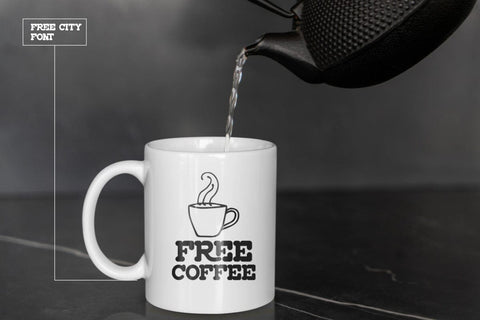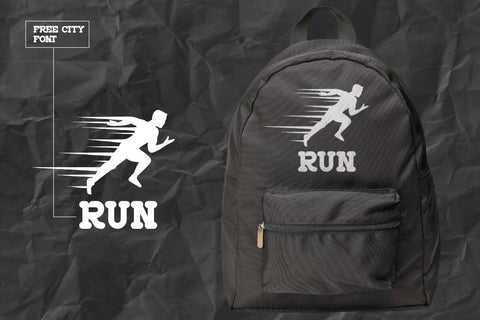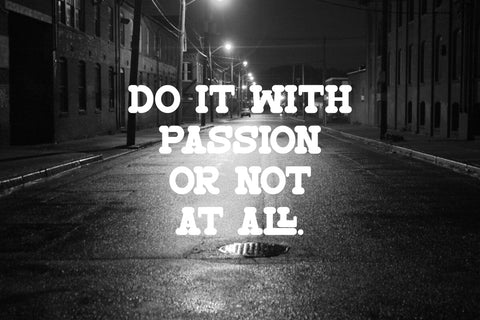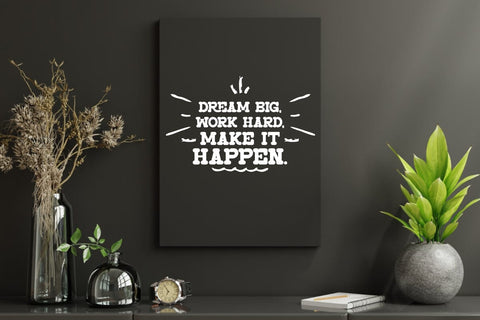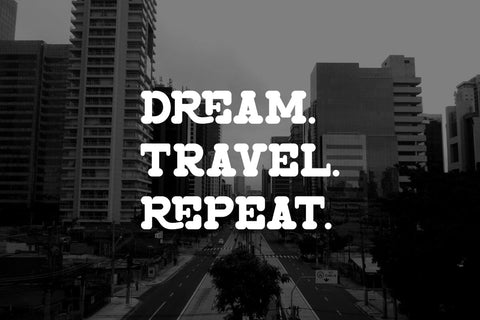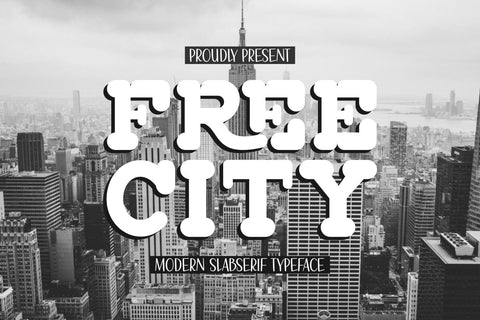
Free City - Vintage Slab Serif Font
Hi, Introducing Free City - Vintage Slab Serif Font
A stunning Slab Serif font. Slab serif font with an ancient style but still touched by a modern feel. This font is really cool for various creative projects such as logos, printing, book covers, titles, labels, logotypes, business needs, branding, craft, sports, sports business, and many other creative ideas.